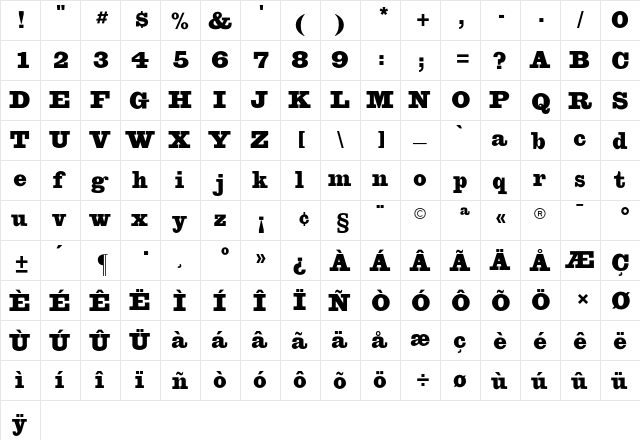
Egiziano CG Black Regular
| Foundry | Miles Inc |
Design Context for Egiziano CG Black Typeface
Egiziano CG Black takes a measured approach to typography — its balanced proportions and neutral character make it a reliable workhorse for both digital and print work.